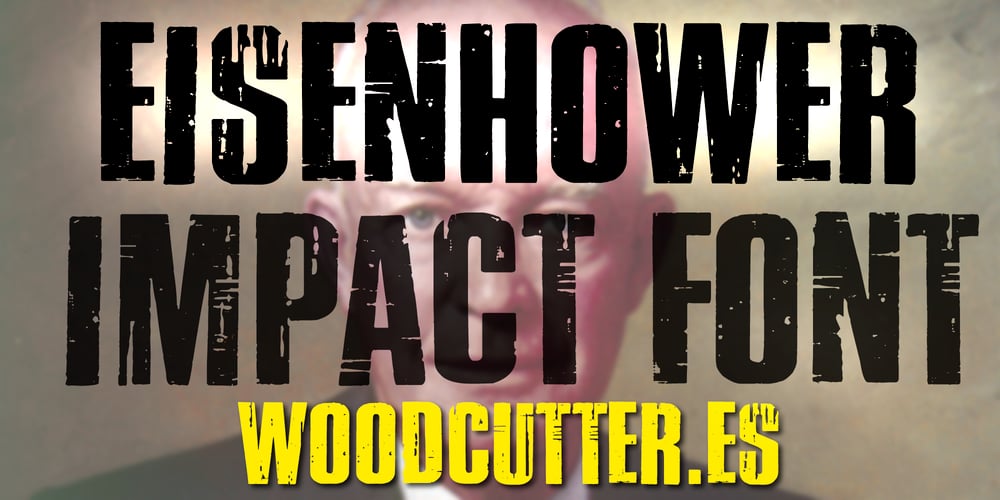
Eisenhower
Eisenhower font
Eisenhower Font Family was designed by Jordi Manero and published by Woodcutter. Eisenhower contains 1 styles and family package options. “Eisenhower” is a typeface characterized by its bold and impactful letters, adorned with wear and scratches that evoke a sense of strength and history. Each character appears to be carved in metal, showing signs of use and wear that give it a rugged and authentic look. Ideal for projects aiming to convey power and robustness, “Eisenhower” is perfect for headlines, logos, and posters that need a strong and memorable presence. This typeface adds a touch of industrial and vintage character to any design, standing out for its uniqueness and imposing style.